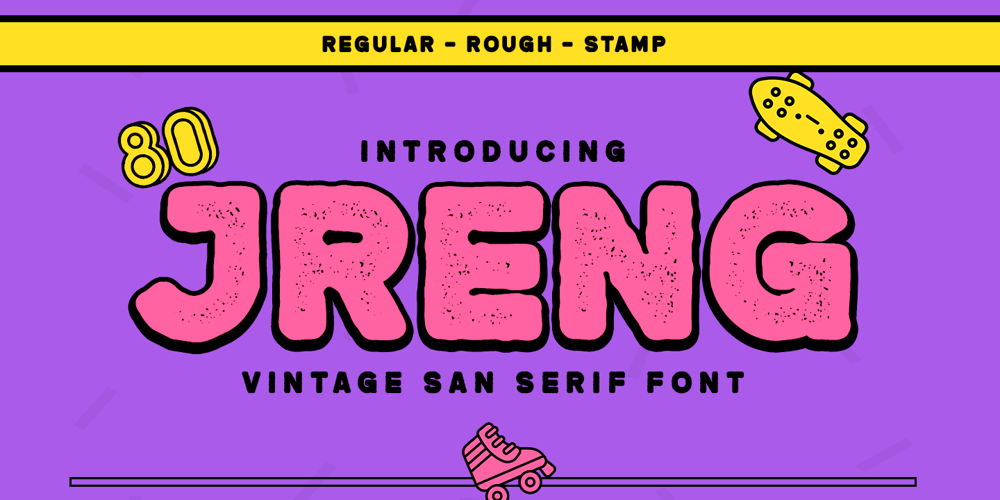
Jreng Font Family was designed by Rozikan and published by Twinletter. Jreng contains 2 styles and family package options. Jreng is a casual retro from the san serif font family that carries a modern classic theme with a variety of letter combinations that are designed to pay attention to the shape of the letter so that it is precise and harmonious in its use, this font forms a vintage style with a smooth, rough touch and a stamp.with this font, you can beautify your work and also strengthen your work in the form of promotional media, banners, posters, logos, typography, hand lettering, packaging, t-shirts, labels, and much more.